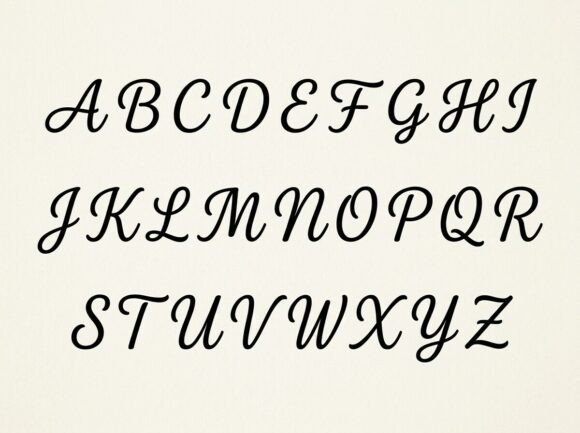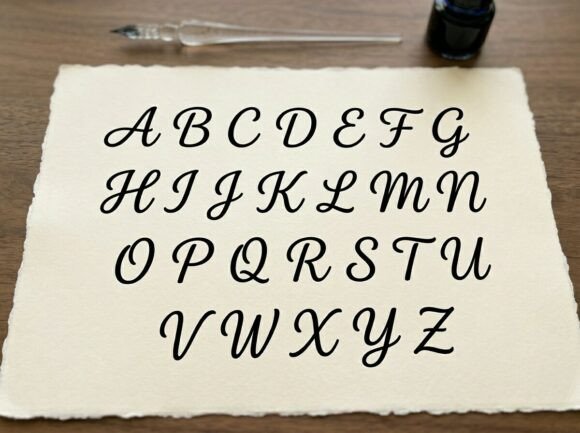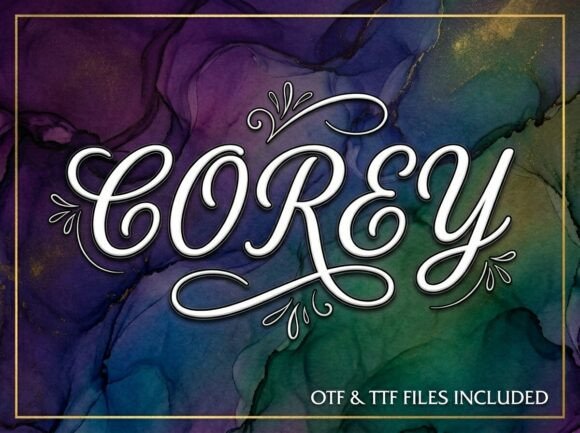
Introducing Corey Font: The Ultimate Display Font for Creative Minds
Are you tired of using the same old fonts for your creative projects? Look no further than Corey Font, a stunning decorative display font that’s designed to turn heads. With its unique artistic elements and strong visual personality, this font is perfect for creators who want to break away from the ordinary and make a statement.
What is Corey Font?
Corey Font is a versatile and eye-catching display font that’s specifically designed for high-impact headlines, logos, and decorative initials. This font features a distinctive and artistic style that’s sure to grab attention and leave a lasting impression. Whether you’re a designer, crafty DIY enthusiast, or entrepreneur looking to elevate your brand, Corey Font is the perfect choice.
Key Features of Corey Font
- Unique Artistic Elements: Corey Font boasts unique artistic elements that set it apart from other fonts. Each letter is carefully crafted to be a work of art, making it perfect for decorative initials, logos, and headlines.
- Strong Visual Personality: This font has a strong visual personality that’s sure to make your creative projects stand out. Its bold and eye-catching style is perfect for making a statement and grabbing attention.
- Versatile: Corey Font is versatile enough for use in a variety of creative projects, including bold headlines, artistic logos, and creative packaging.
- Professional and Polished Finish: Despite its bold and artistic style, Corey Font maintains a professional and polished finish that’s suitable for even the most high-end creative projects.
IMPORTANT NOTE BEFORE PURCHASE: Corey Font is an ALL-CAPS (Uppercase Only) display typeface. This means that it does not include lowercase letters. It’s specifically designed for high-impact headlines, logos, and decorative initials where every letter is a work of art.
Who is Corey Font for?
Corey Font is perfect for:
- Graphic Designers: If you’re a graphic designer looking for a unique and eye-catching font to use in your creative projects, Corey Font is the perfect choice.
- Crafty DIY Enthusiasts: If you love crafting and DIY projects, Corey Font is a great choice for adding a personal touch to your creations.
- Entrepreneurs: If you’re looking to elevate your brand and make a statement, Corey Font is perfect for use in logos, headlines, and marketing materials.
- Headlines: Use Corey Font to create bold and eye-catching headlines for your blog posts, articles, or marketing materials.
- Logos: Create a unique and memorable logo for your brand using Corey Font.
- Packaging: Add a personal touch to your product packaging with Corey Font.
- Social Media Graphics: Use Corey Font to create eye-catching social media graphics that will help your brand stand out.